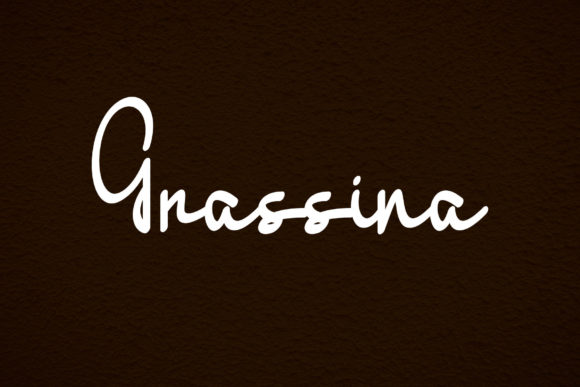
Behold the Grassina Font, an Exquisite Script Font.
Immerse yourself in the world of elegance and sophistication with Grassina, a chic and refined script font that will elevate your designs to new heights. It's a font that speaks of timeless beauty and grace, making it the perfect choice for any project that seeks to exude an air of sophistication.
Unleash Your Creativity with Stylish Alternates and Ligatures:
Grassina's captivating alternates and ligatures are like hidden treasures, waiting to be discovered and incorporated into your creative masterpieces. These elements add a touch of individuality and charm, allowing you to create designs that stand out from the crowd. Explore endless possibilities and let your imagination run wild, as Grassina's versatility knows no bounds.
Make a Statement with Every Project:
Whether you're designing a wedding invitation, crafting a heartfelt letter, or creating a stunning social media post, Grassina is your perfect partner. Its charm and elegance will effortlessly enhance your words, conveying a sense of refinement and luxury. Let Grassina become your secret weapon for crafting designs that leave a lasting impression.
The Perfect Touch for T-Shirt Designs:
With Grassina, your T-shirt designs will transcend the ordinary and become wearable works of art. Its stylish alternates and ligatures will add a touch of intrigue and individuality, making each T-shirt a unique expression of personal style. Whether you're designing for yourself or for a client, Grassina is the font that will make your T-shirt designs shine.